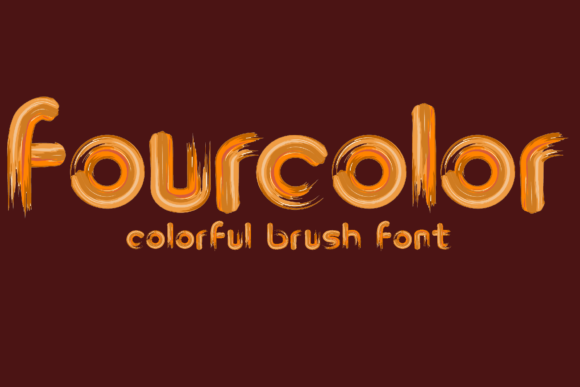
Unleash Your Creativity with the Fourcolor Font
Have you ever stared at a blank canvas, waiting for that spark of inspiration to strike? The moment when the perfect design idea hits you, and you can’t wait to bring it to life? That’s exactly what happened when the Fourcolor Font was born – a brush-style font with matching colors that’s sure to add a touch of excitement to any project.
Designed to elevate your designs and products, the Fourcolor Font is a game-changer for creatives. Its unique brush texture and vibrant colors make it the perfect addition to any project, from branding and marketing materials to digital art and more. With its versatility and visual appeal, this font is a must-have for designers looking to add a little extra magic to their work.
- Unique Characteristics: Fourcolor Font features a unique, hand-drawn design with four distinct color variations, allowing users to easily switch between different color schemes and create a visually appealing look.
Fourcolor Font Review
Overall, I think Fourcolor Font is a decent option for designers looking for a sans-serif font with a unique twist. Here are some things that work well:
- ✨ Unique color-changing feature: Fourcolor Font is able to change its color scheme based on the background, which can be a fun and interesting effect for designers looking to add some visual interest to their projects.
- ✨ Clear and readable: Despite its unusual color-changing feature, Fourcolor Font is still very clear and readable, making it a good option for body text or headings.
- ⚠️ Limited font styles: Fourcolor Font only comes in a few different font styles, which may limit its versatility for designers who need a lot of different options.
- ⚠️ Can be overwhelming: While the color-changing feature can be fun, it can also be overwhelming if used too much or in the wrong context.
Overall, I think Fourcolor Font is a solid option for designers who are looking for something a little different. While it may not be the best choice for every project, it can be a fun and interesting addition to the right design.
Fourcolor Font is ideal for creating eye-catching headings, titles, and logos. It’s also great for adding a touch of elegance to your designs. To get the most out of this font, experiment with different color combinations and font sizes.
Alternatives to Fourcolor Font for Designers
Great Vibes is a modern and elegant script font that is ideal for creating a sophisticated and luxurious look. It’s perfect for use in wedding invitations, luxury branding, and high-end packaging.
Compared to Fourcolor Font, Great Vibes is more polished and refined, making it a great choice for designers who want to create a high-end look. While Fourcolor Font has a more playful and casual feel, Great Vibes is more suitable for formal and upscale designs.
Playfair Display is a luxurious and elegant serif font that is perfect for creating a high-end and sophisticated look. It’s ideal for use in luxury branding, high-end packaging, and special event invitations.
Compared to Fourcolor Font, Playfair Display is more formal and refined, making it a great choice for designers who want to create a luxurious and high-end look. While Fourcolor Font has a more playful and casual feel, Playfair Display is more suitable for formal and upscale designs.